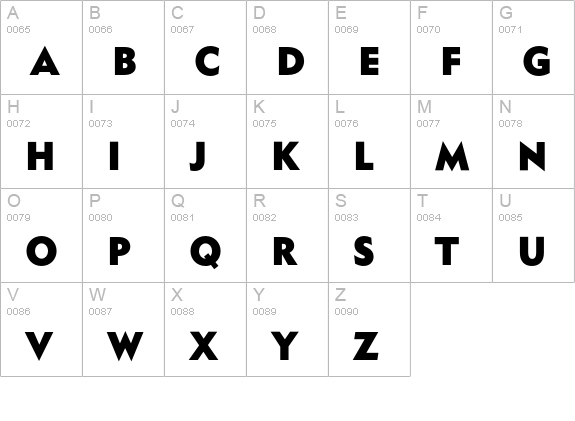
Nivea Bold is a strong, high-contrast variant in the Nivea typeface family \xE2\x80\x94 well suited to headlines, attention-grabbing titles, and strong calls-to-action.
Nivea Bold font is a modern and stylish typeface that exudes confidence and sophistication. Its clean lines and bold strokes make it perfect for grabbing attention and making a statement. The Nivea Bold font is versatile and can be used for various design projects, from logos to headlines to branding materials.
What sets Nivea Bold font apart is its unique blend of elegance and strength, making it a standout choice for those looking to make a bold impact with their typography. Whether you're designing a sleek website, eye-catching packaging, or striking posters, the Nivea Bold font will help you achieve a polished and professional look.